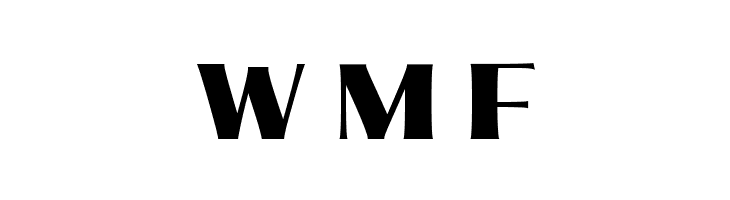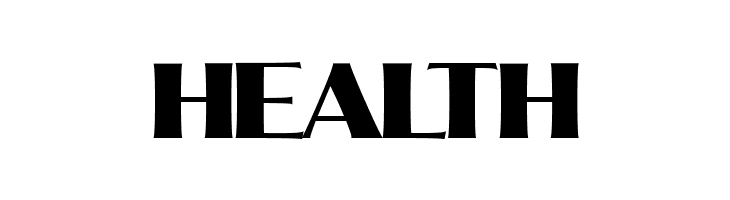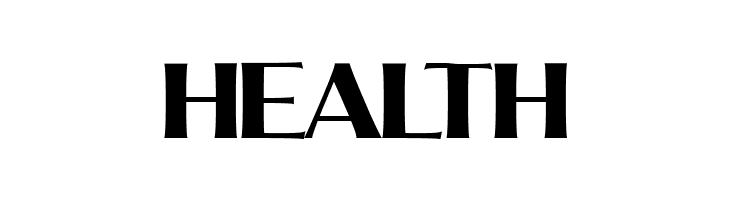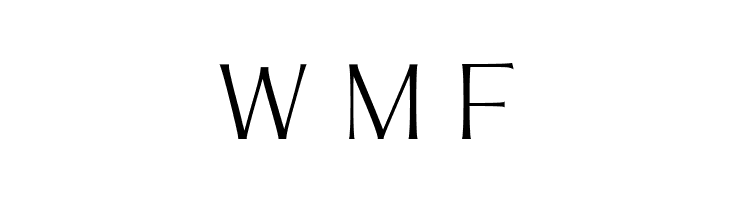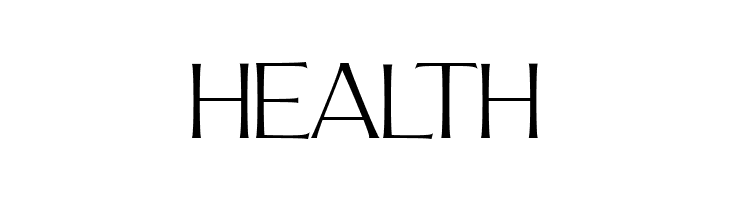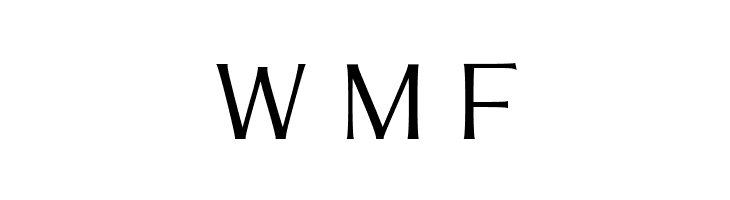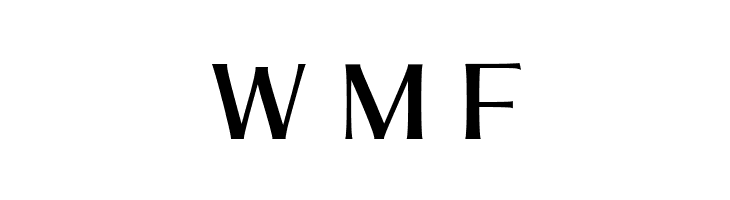
MollySerifNPERSONAL-Medium Font
A modern serif font with bold, slightly condensed characters and unique curves.
MollySerifNPERSONAL-Bold Font
A bold, modern serif font with high contrast and dynamic character shapes.
MollySerifNPERSONAL-Black Font
A bold, high-contrast serif font with sharp, angular serifs for dramatic impact.
MollySerifNPERSONAL-Thin Font
A modern serif font with thin strokes and a refined, elegant appearance.
MollySerifNPERSONAL-Light Font
A modern serif font with elegant, elongated forms and subtle curves.